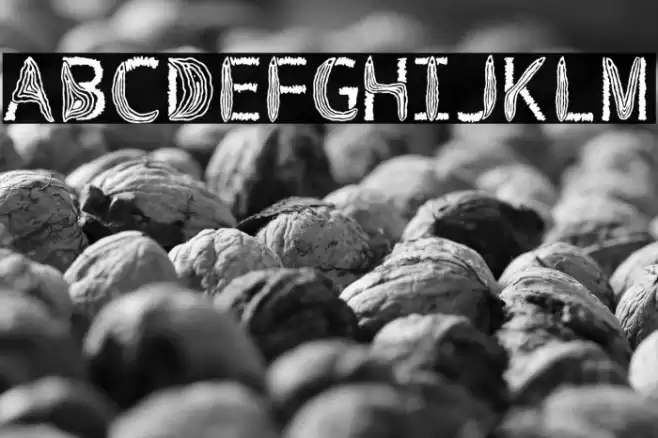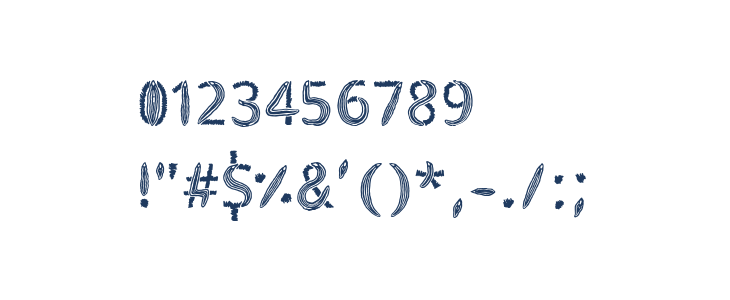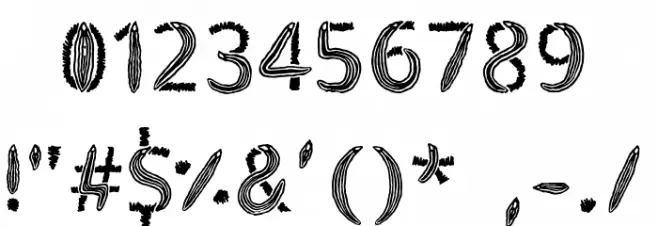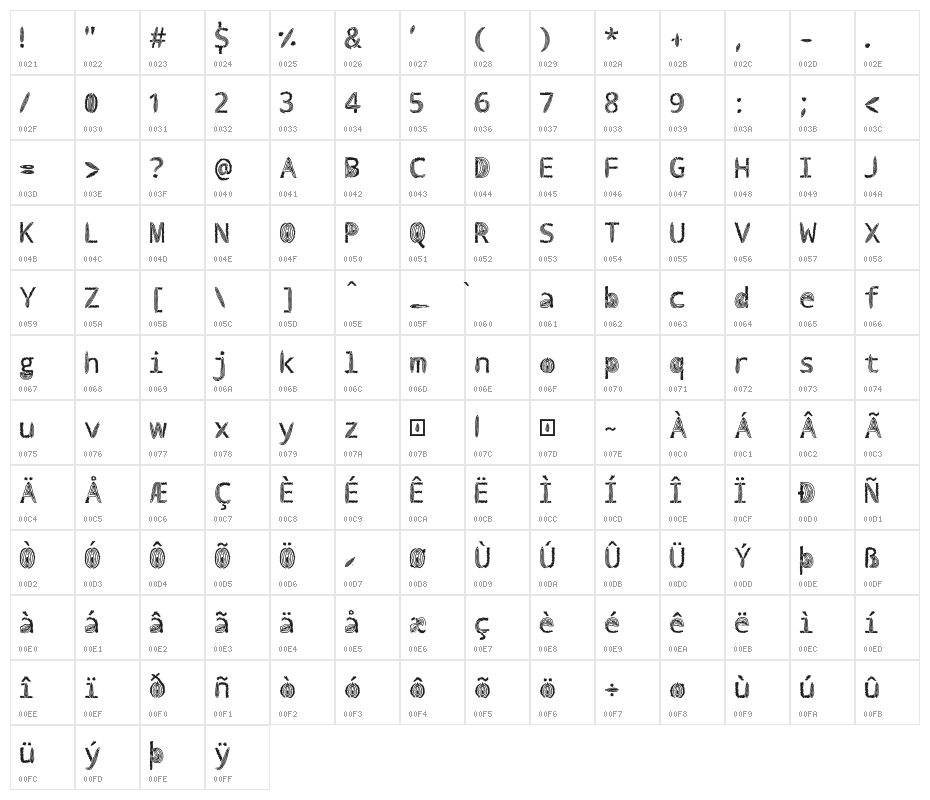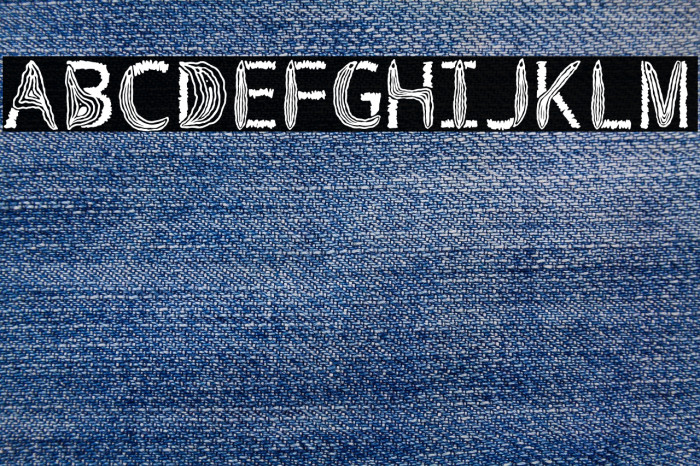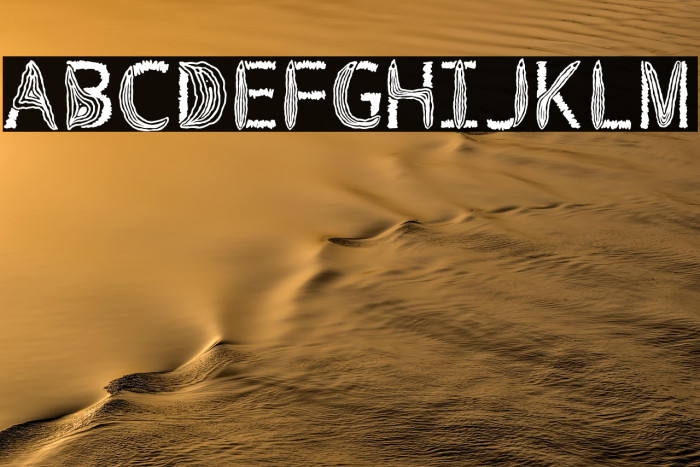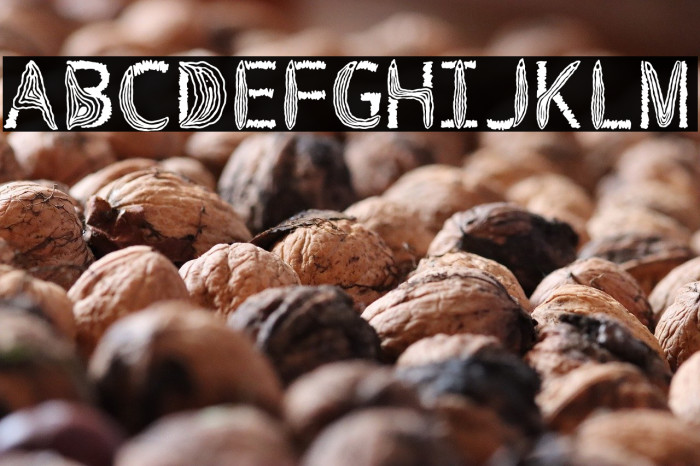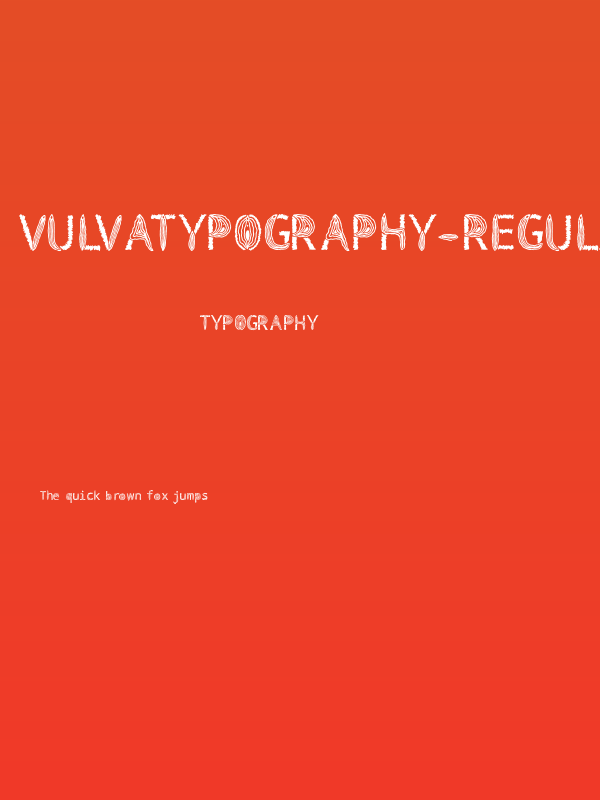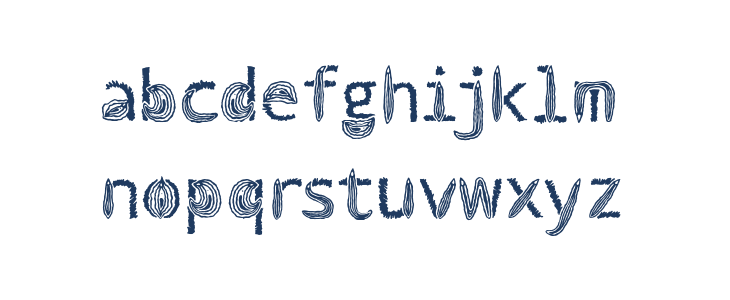
VulvaTypography-Regular Font
VulvaTypography-Regular Description
This font features a unique, hand-drawn style with intricate line work that gives each character a textured, organic appearance. The letters are bold and expressive, with a playful yet sophisticated vibe. The uppercase and lowercase letters maintain a consistent style, with the uppercase being slightly more pronounced. Numbers and special characters are equally detailed, ensuring a cohesive look across all text elements. The font's artistic flair makes it stand out, perfect for creative projects that require a distinctive touch.
A bold, hand-drawn font with intricate line work and a textured, organic appearance from Uncategorized fonts.
- Proposed Projects: Ideal for artistic posters, creative branding, unique invitations, and eye-catching headlines.
- Use Case: Headlines, Logos, Artistic Projects